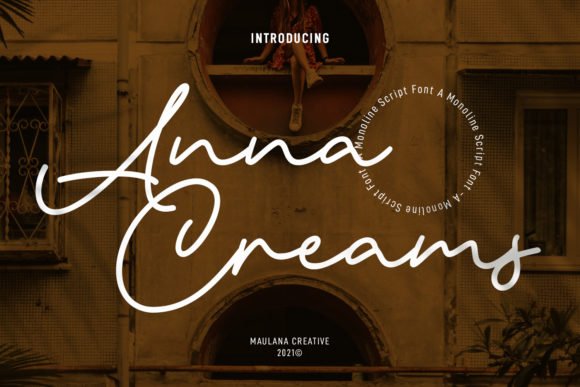
Unlock the Charm of Vintage Elegance with Anna Creams Font
Remember the moment when you stumbled upon the perfect font to elevate your design project? For me, that moment was when I discovered the Anna Creams Font. Its smooth curves and vintage charm immediately caught my attention, and I knew I had to learn more.
Anna Creams Font is a beautifully crafted script font, perfect for adding a touch of elegance to fashion branding or editorial designs. Its well-balanced style makes it an excellent choice for designers who want to create visually appealing and sophisticated projects. By incorporating the Anna Creams Font into your designs, you’ll not only add a unique touch but also convey a sense of luxury and refinement.
Anna Creams Font Key Features
- Unique Characteristics: The font features a unique, elegant script design with a touch of whimsy, making it perfect for creating eye-catching and memorable designs.
Anna Creams Font Review
Overall, I was excited to try out the Anna Creams Font. It’s a beautiful, elegant script font that’s perfect for adding a touch of sophistication to your designs. ✨ One of the things that works well about this font is its versatility – it’s suitable for a wide range of projects, from wedding invitations to branding and packaging.
Another strength of the Anna Creams Font is its legibility. ✨ The letterforms are clear and easy to read, even at smaller font sizes, making it a great choice for body text or headings.
- Beautiful, elegant script design
- Highly versatile – suitable for a wide range of projects
- Excellent legibility
- Limited font sizes available
- May not be suitable for digital use (e.g. websites, mobile apps) due to its script design
Overall, I’m impressed with the Anna Creams Font, but I do wish there were more font sizes available. Despite this, I think it’s a great choice for print-based projects or when you need a touch of elegance in your design.
Tips for Getting the Most Out of Anna Creams Font
To get the most out of Anna Creams Font, try using it in combination with bold or italic styles to create visual interest.
Experiment with different font sizes to create a clear hierarchy of information.
Anna Creams Font is perfect for:
- Creating a whimsical and playful brand identity.
- Designing children’s books or educational materials.
- Adding a touch of elegance to wedding invitations or stationery.
Alternatives to Anna Creams Font
Lato is a sans-serif font that is highly versatile and suitable for various design projects. It is clean, modern, and elegant, making it perfect for use in logos, headings, and body text. Lato is a great alternative to Anna Creams Font as it has a similar modern feel but with a more minimalist approach.
When to use: Lato is ideal for use in modern websites, apps, and digital products where a clean and minimalistic design is desired.
Merriweather is a classic serif font that exudes elegance and sophistication. It is perfect for use in formal designs, such as business cards, letterheads, and publications. Merriweather is a great alternative to Anna Creams Font as it offers a more traditional and timeless feel.
When to use: Merriweather is ideal for use in formal designs where a classic and sophisticated look is desired.